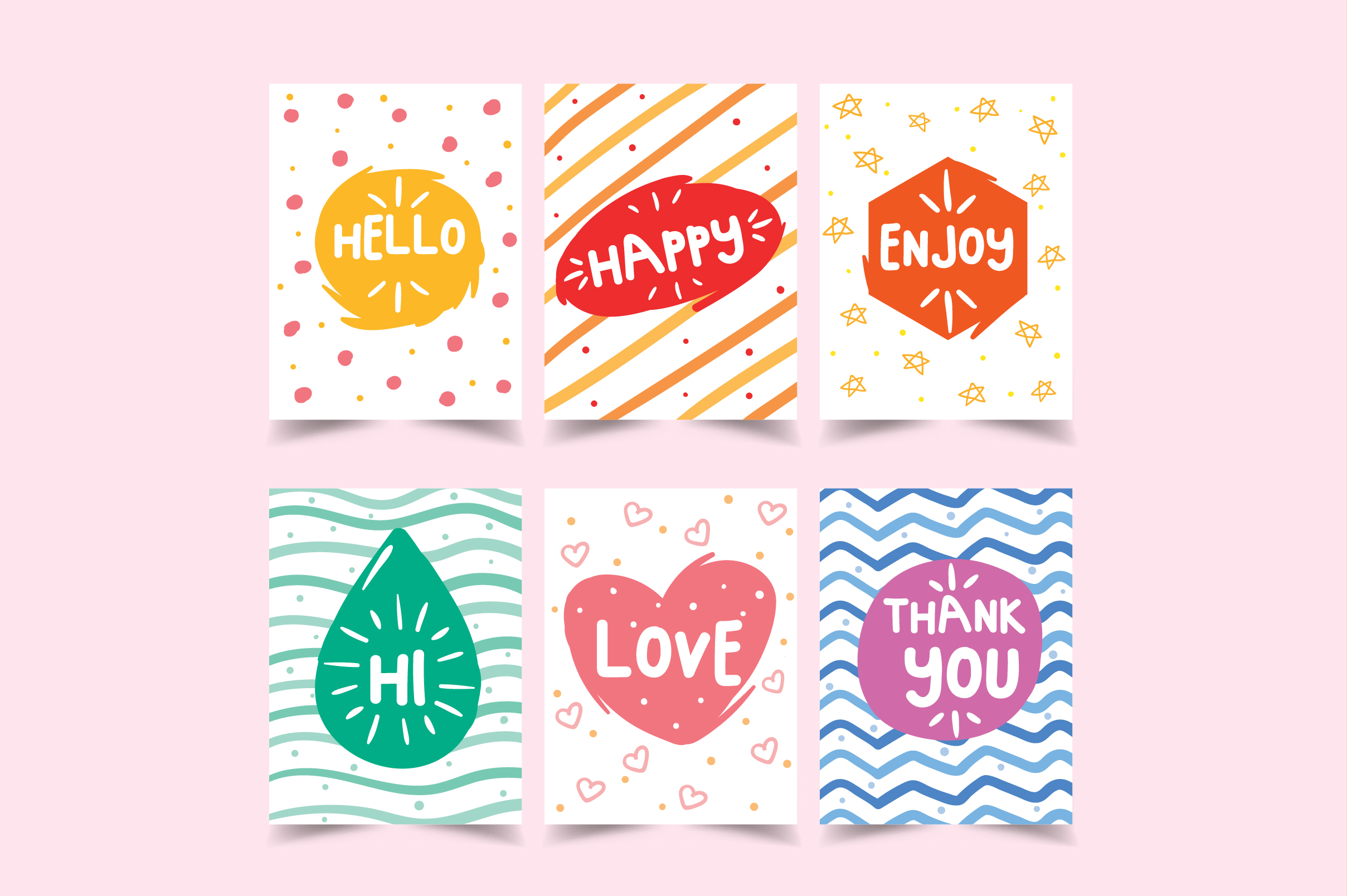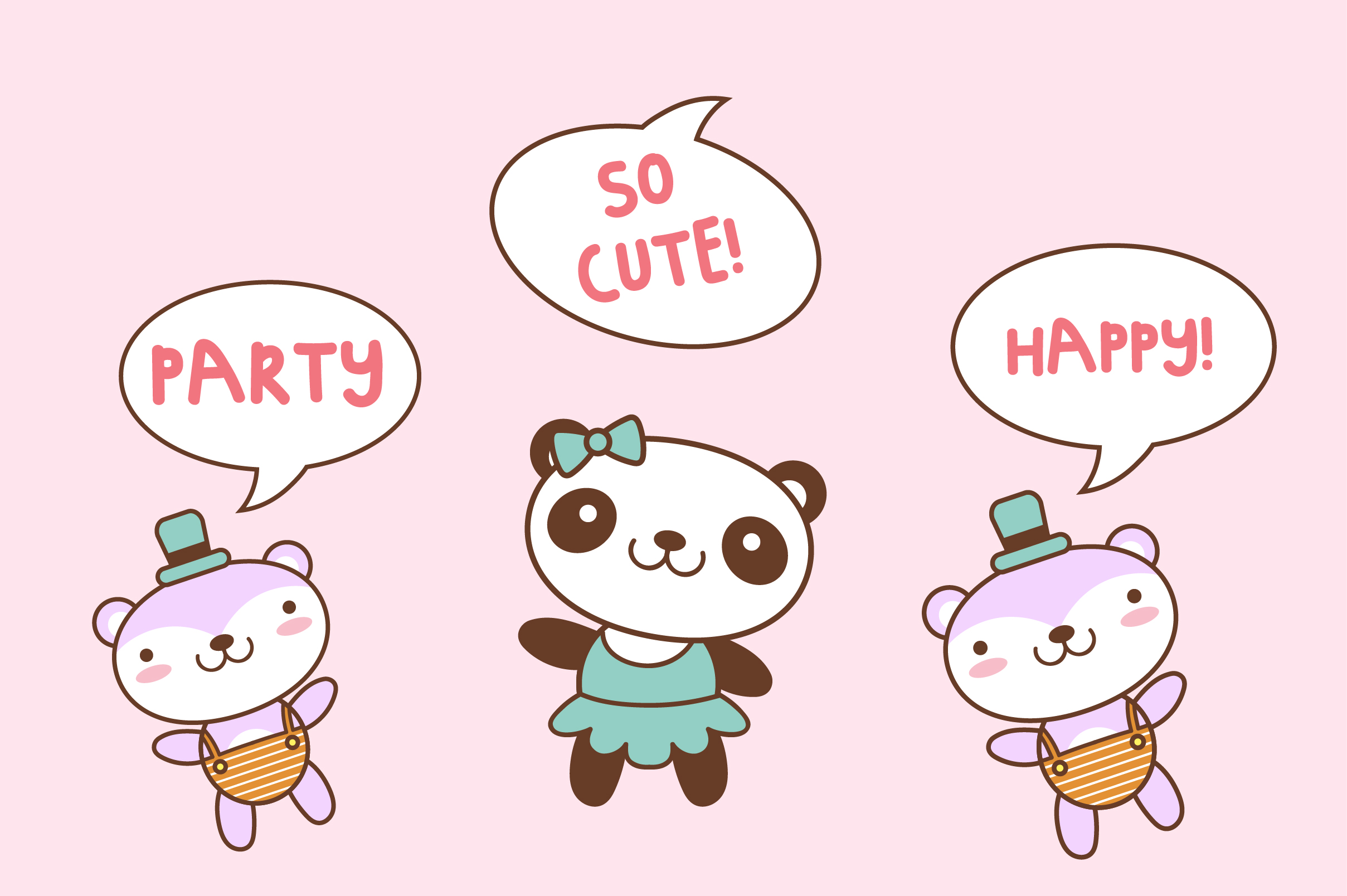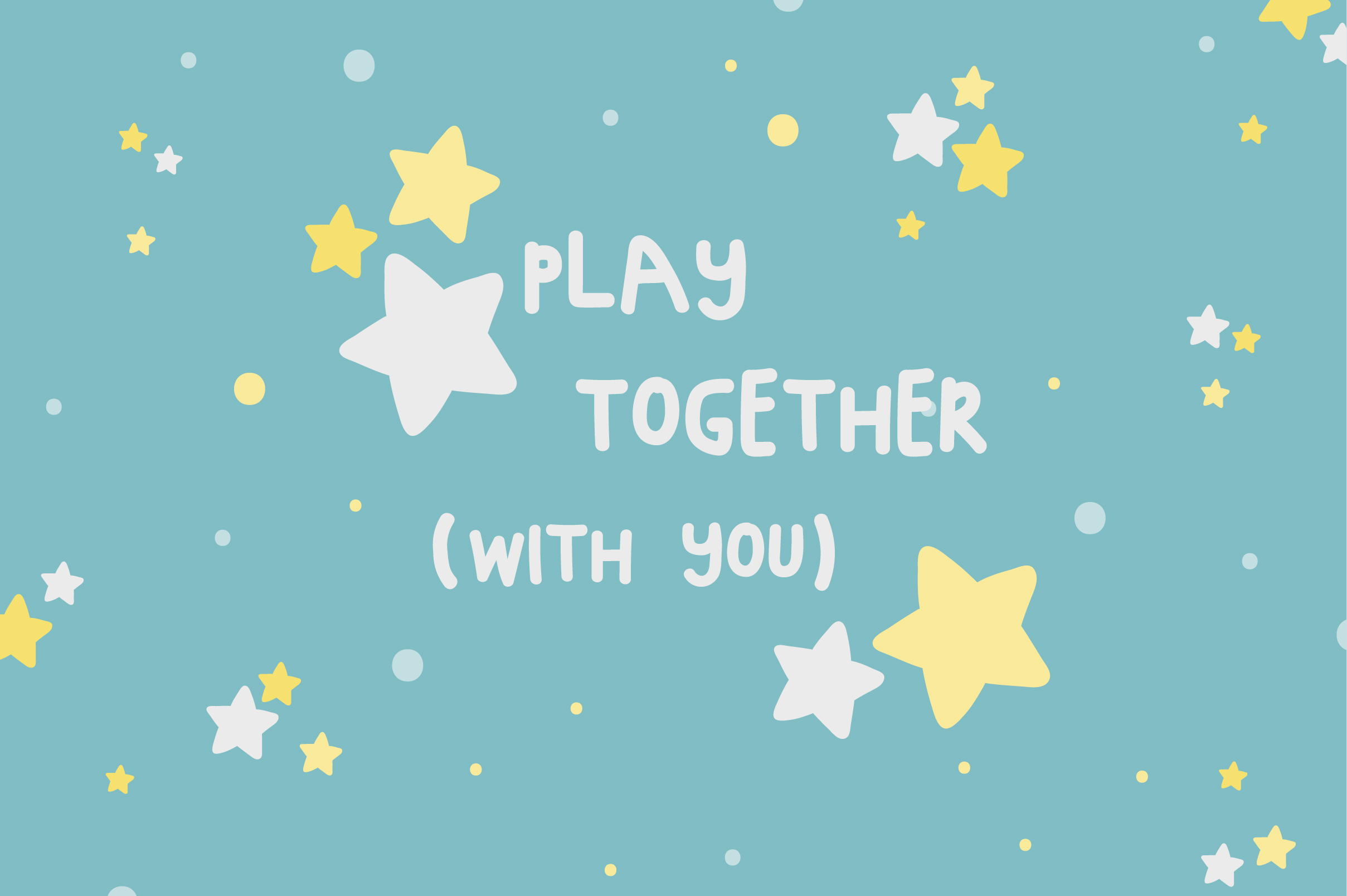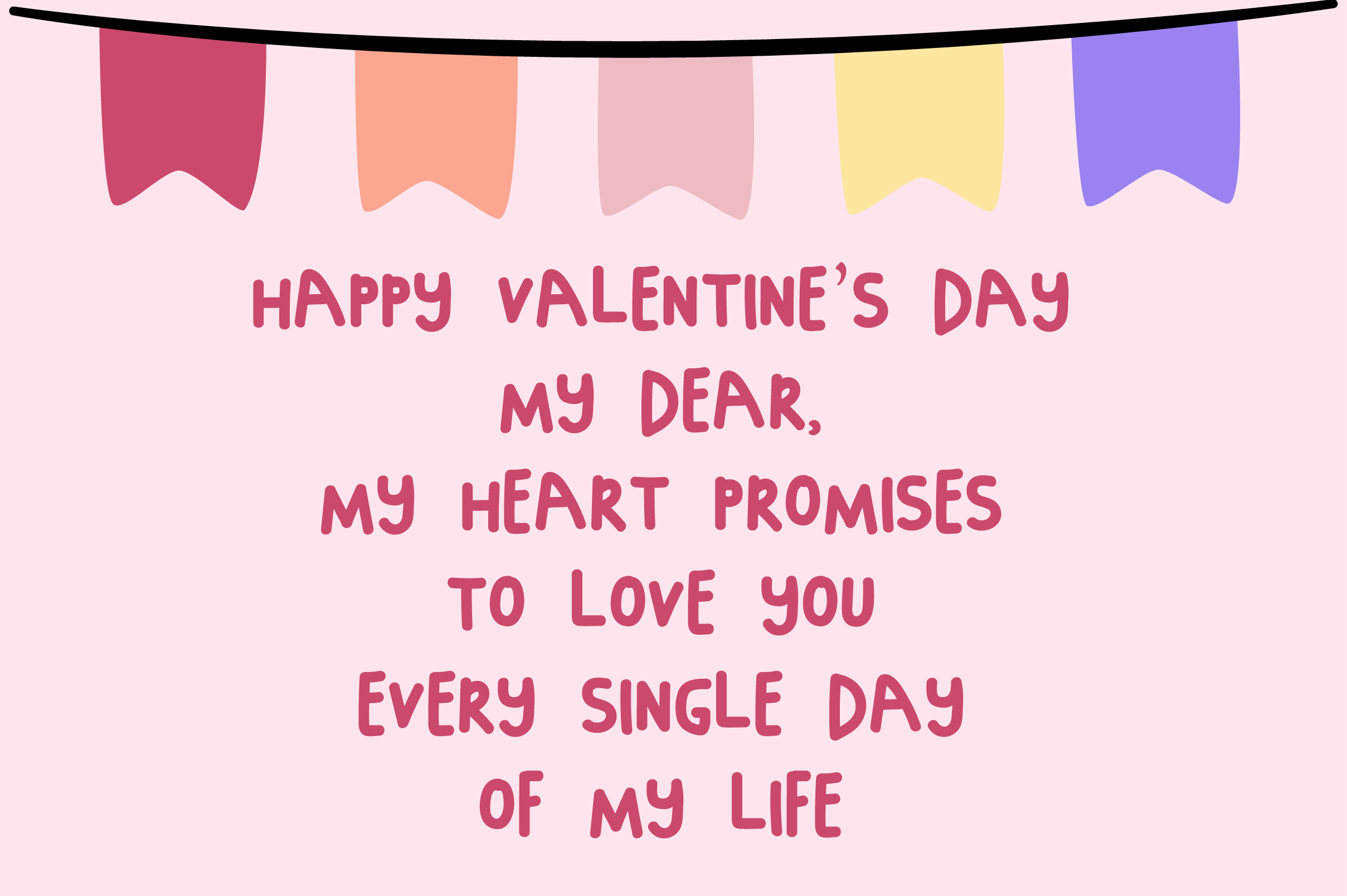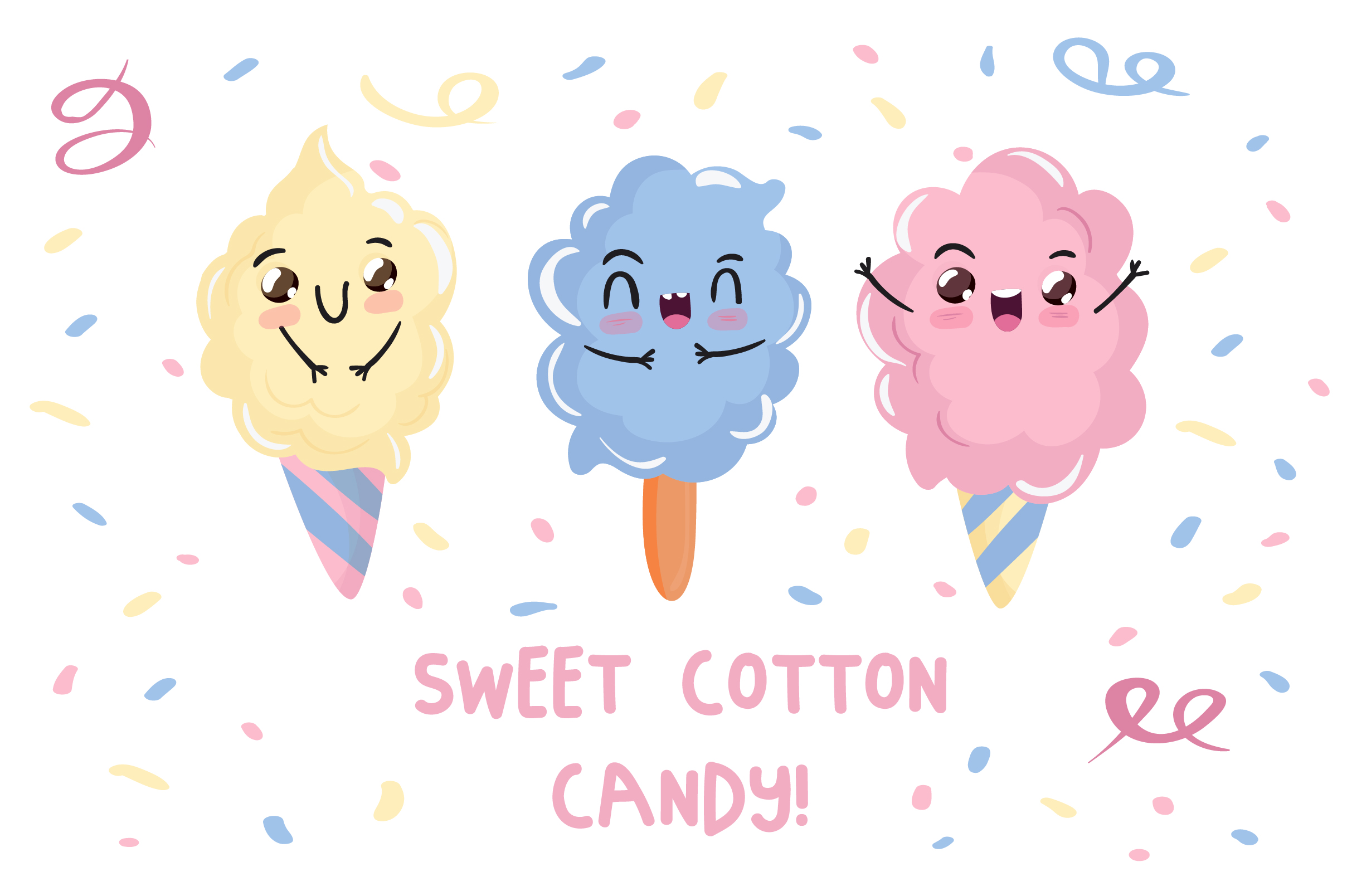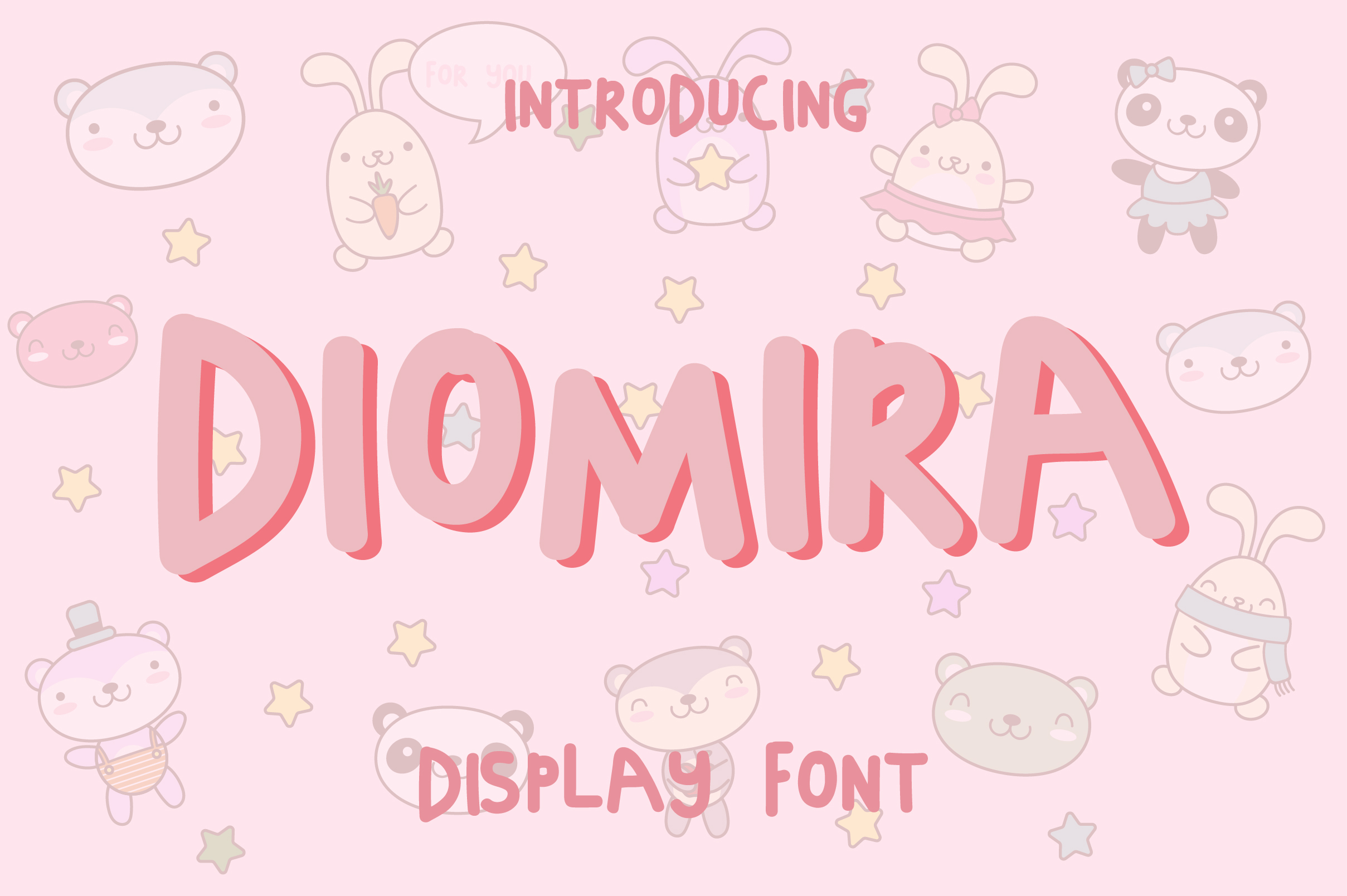
Diomira Display Font
Introducing: Diomira ! A sweet and simple hand-drawn font. Its bold and curvy characters can add a bunch of personality to any project. Diomira can be used for personal or commercial projects, in logos, on items for purchase with unlimited sales, and can be turned into a web font (web font files are not included in the download).